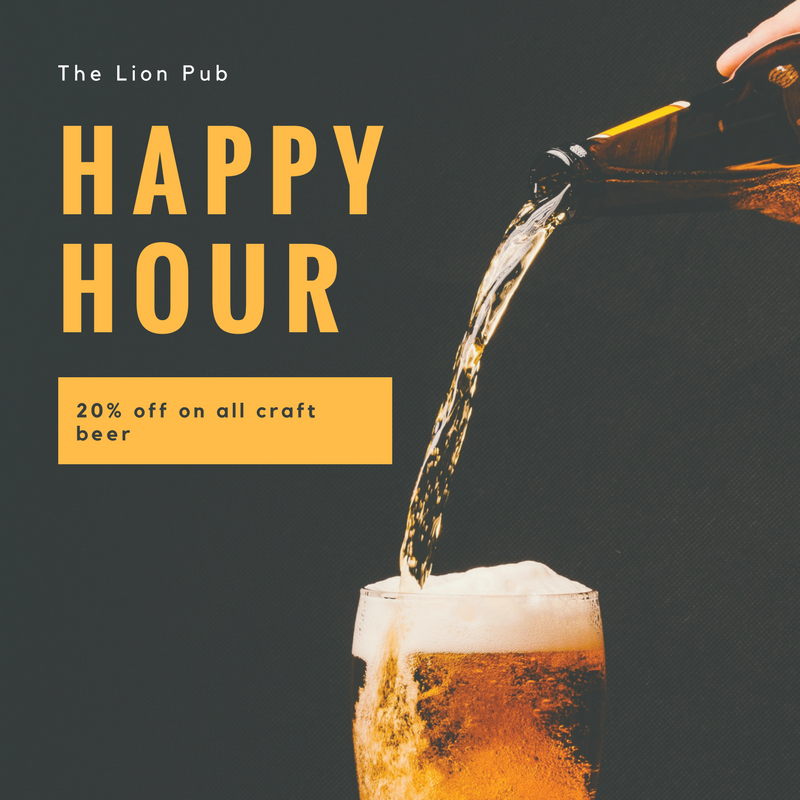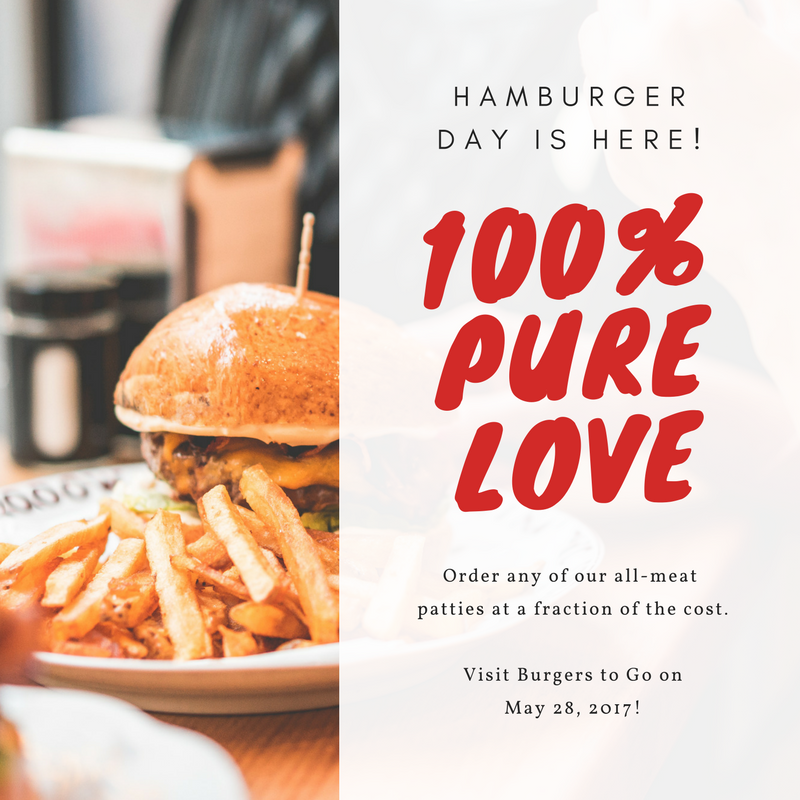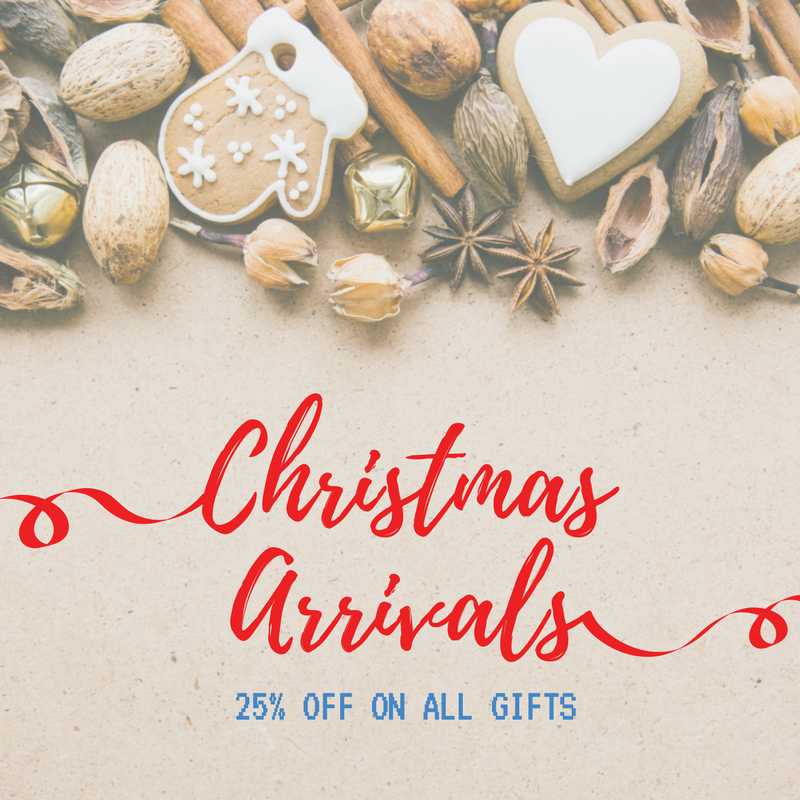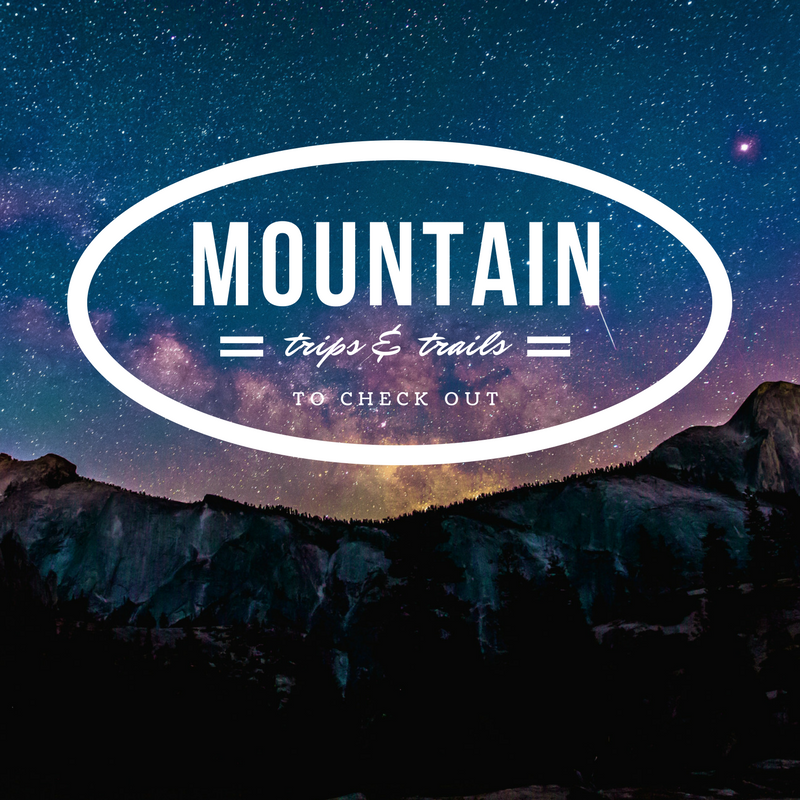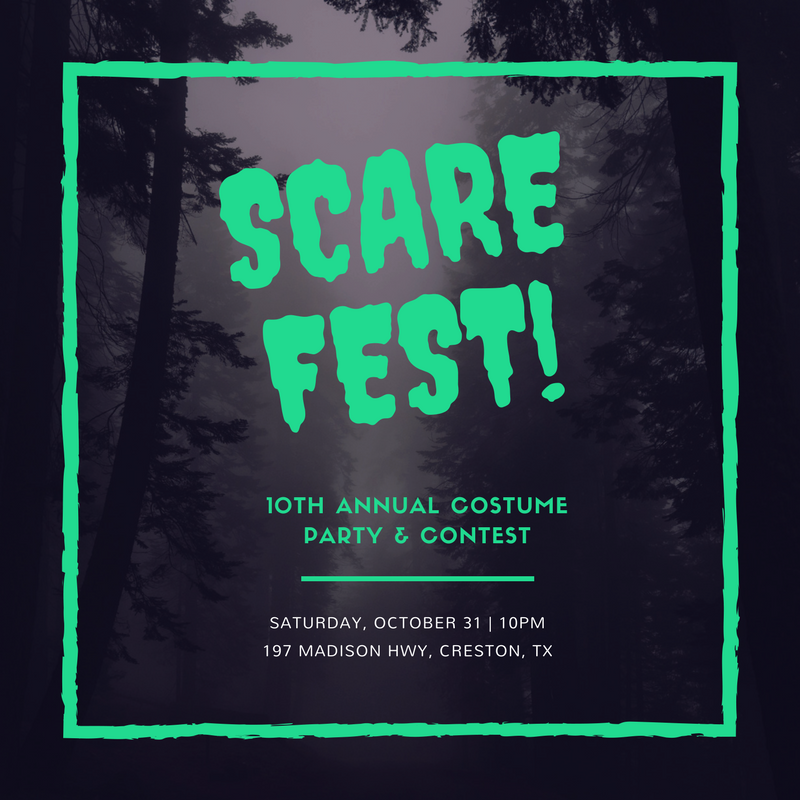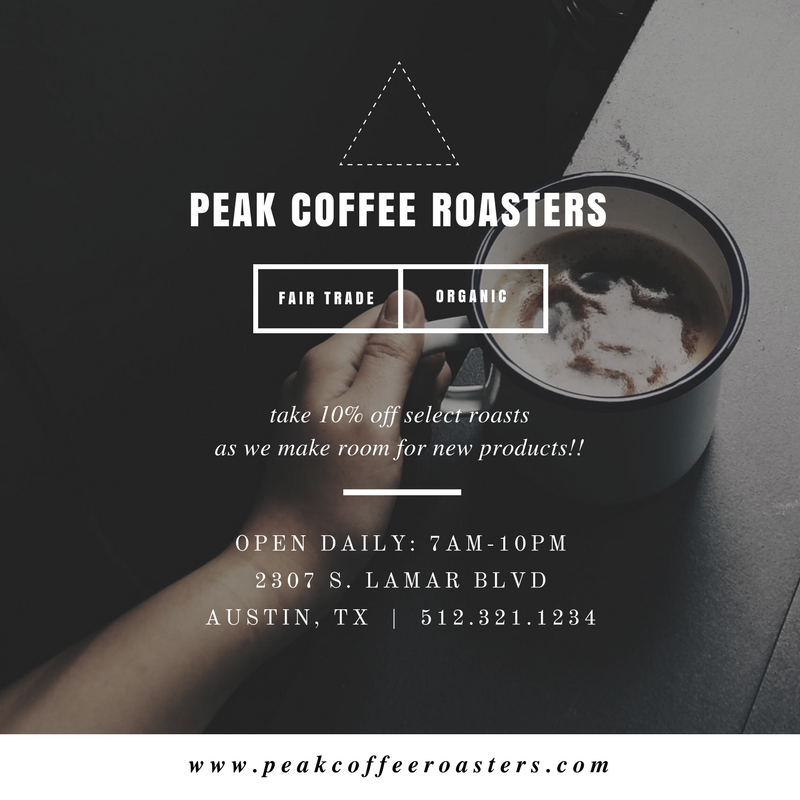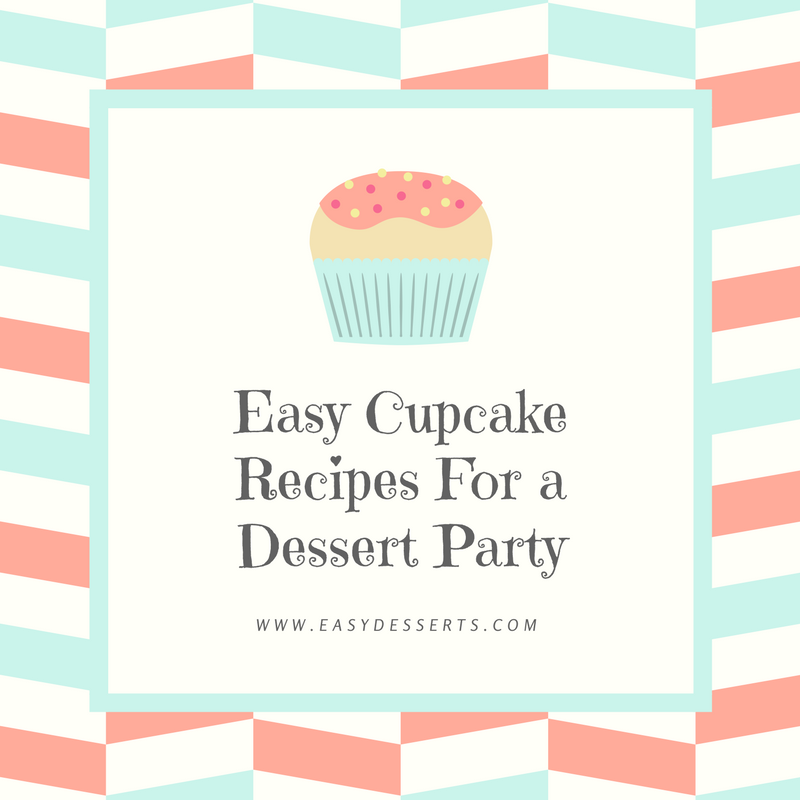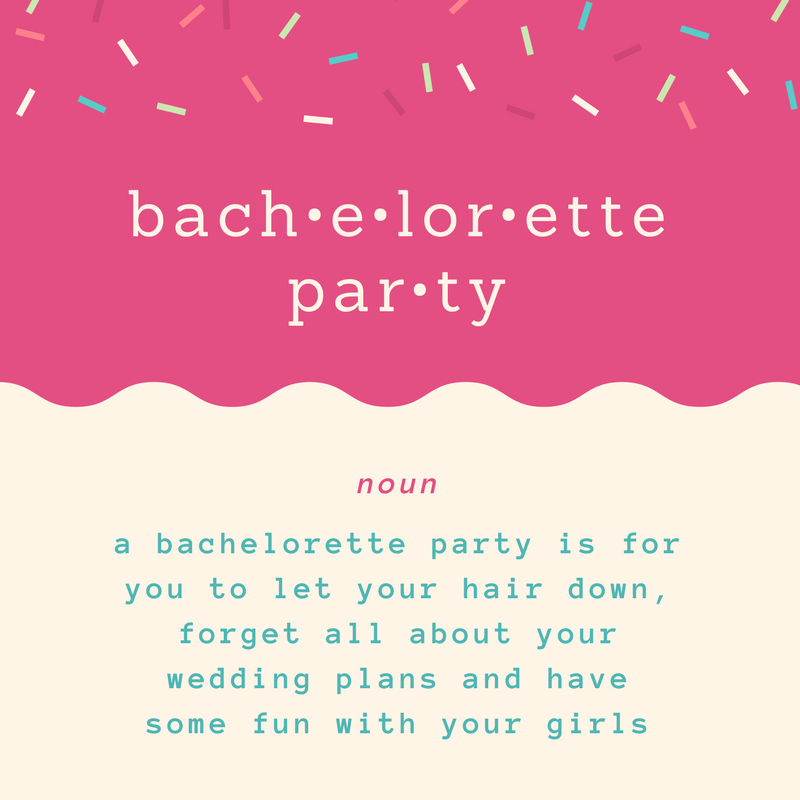
15 More Font Pairings to Try in Canva
One of the biggest issues I've seen in design is poor font pairing. And with so many bloggers creating their own images, I've been seeing it a lot more. The main reason for this is the lack of knowledge. And although some may not have a design background, I honestly feel that with the proper tools anyone can learn.
In November, I posted 10 font pairings you can try in Canva. I talked a little bit about font pairing so to reiterate I'll outline some key points.
FONT PAIRING IS REALLY QUITE SIMPLE
Include variety: If you want your design to be both visually pleasing and interesting, combine opposite styled fonts. Don't be afraid to go out of your comfort and pair up two different style typefaces. For example: combine a handwritten font with a serif font or a script font with thin uppercase text. Protip: don't combine two different script fonts together. Also try and avoid using script fonts for longer sentences and smaller font sizes, such as web addresses. It might become difficult to read.
Less is always more: Remember that it's called "pairing" for a reason. Keep it simple and don't over do it with too many different fonts. I would avoid using more than 3 different fonts in any given design. Some of the best designs are the simplest without too much busyness.
Don't overthink it: The trick is to experiment with different fonts and sizes to see what goes well together. To be quite honest, font pairing has a lot to do with personal preference so don't be afraid of pairing fonts together.
Canva is a great place for beginners to start because it doesn't try and drown you in tons of fonts. It's easy to use and it has some great pre-made graphics that you have full customization over.
Below are some more ideas I've come up to help inspire you to get started.
- Main Header – Lobster Two
- Subtext - Julius Sans One
- Top & Bottom Subtext - Kollektif
- Main Header – Oswald (Uppercase)
- Top Subtext - Glacial Indifference
- Main Header – Knewave
- Bottom Subtext – Vollkorn
- Main Header – Playlist Script
- Bottom Subtext – VT323
- Main Header – Bebas Neue (Bold and Uppercase)
- Subtext – Mr Dafoe
- Bottom Subtext – Coustard
- Main Header – Creepster (Uppercase)
- Subtext – Sifonn (Uppercase)
- Bottom Subtext – Nunito Light
- Main Header & Subtext – Anton (Uppercase)
- Middle Subtext – Times Neue Roman (Italic)
- Bottom Subtext & Website - Old Standard (Uppercase)
- Main Header – Emilys Candy
- Website - Rosario (Uppercase & Italic)
- Main Header – Sanchez
- Subtext - Anonymous Pro (Uppercase & Italic)
- Main Header – Hammersmith One (Uppercase)
- Top and Bottom Subtext - Libre Baskerville (Uppercase & Italic)
- Top Subtext - IM Fell English Small Caps
- Main Header – Droid Serif (Uppercase)
- Bottom Subtext - IM Fell (Italic)
- Top & Bottom Subtext - Anonymous Pro
- Main Header – League Spartan (Uppercase)
- Main Header – Sacramento
- Subtext - Arvo
- Secondary Subtext - Gidole (Uppercase)
- Main Header – Text Me One (Uppercase)
- Subtext - Raleway (Bold)
- Bottom Text - Nunito Light (Uppercase)
- Main Header – Quickand (Uppercase, Bold & Italic)
- Subtext - Tenor Sans (Uppercase)